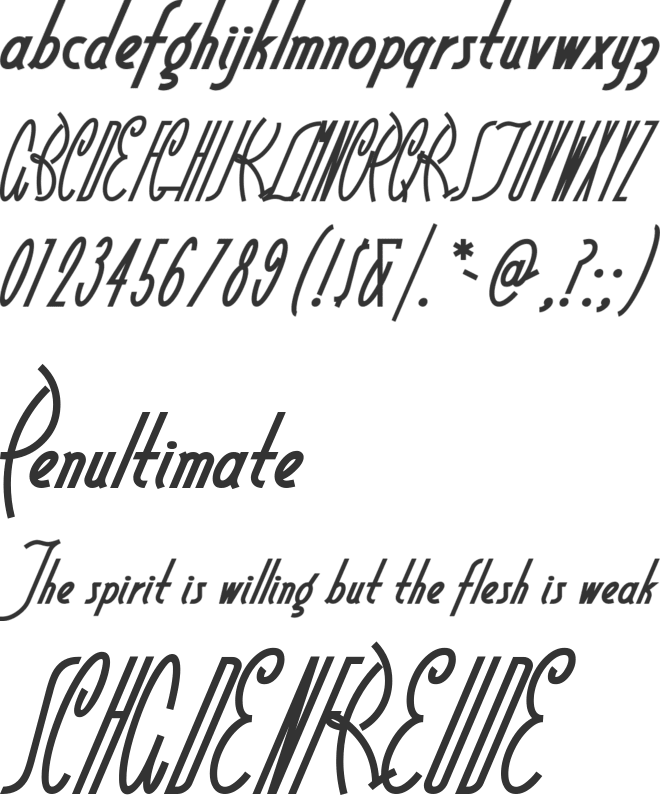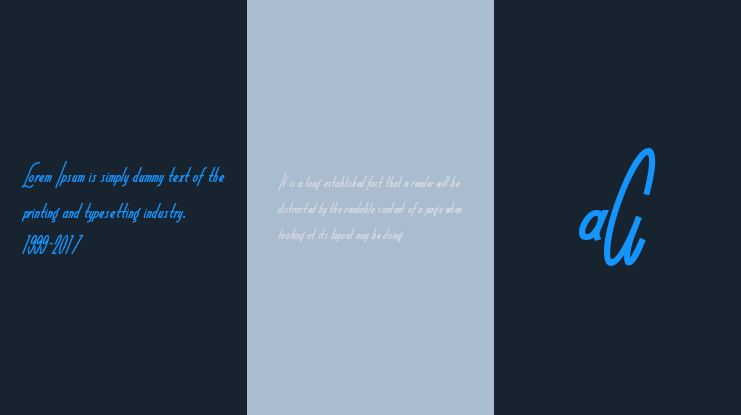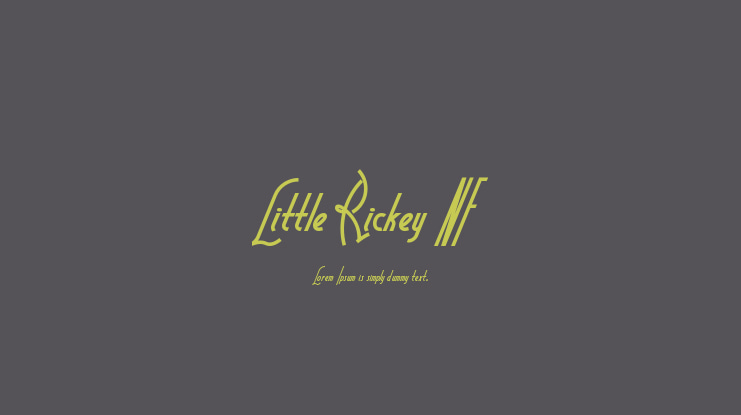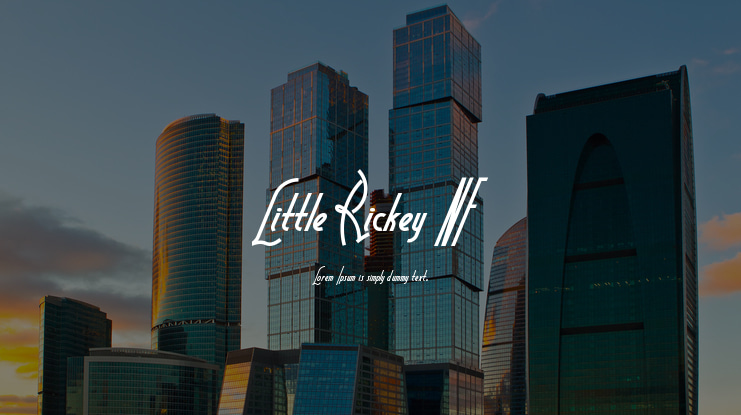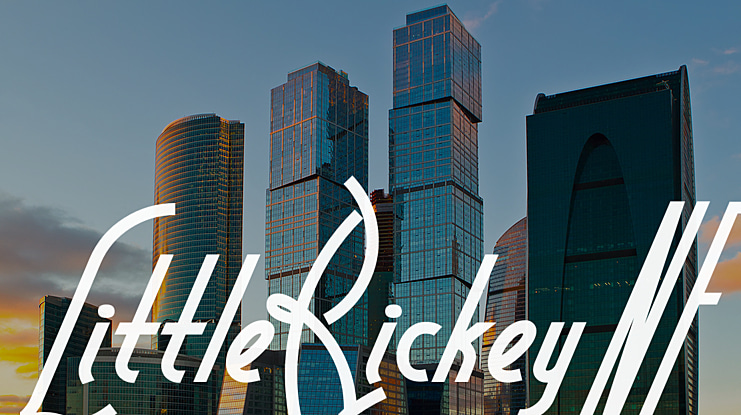
Little Rickey NF Font
Nick Curtis
This odd duck of a typeface was inspired by lettering on a 1948 Spanish orange-crate label featuring the naranjas bonitas of Ricardo Llacer y Hijos. Named, of course, after the born-in-prime-time offspring of Lucy and Desi.